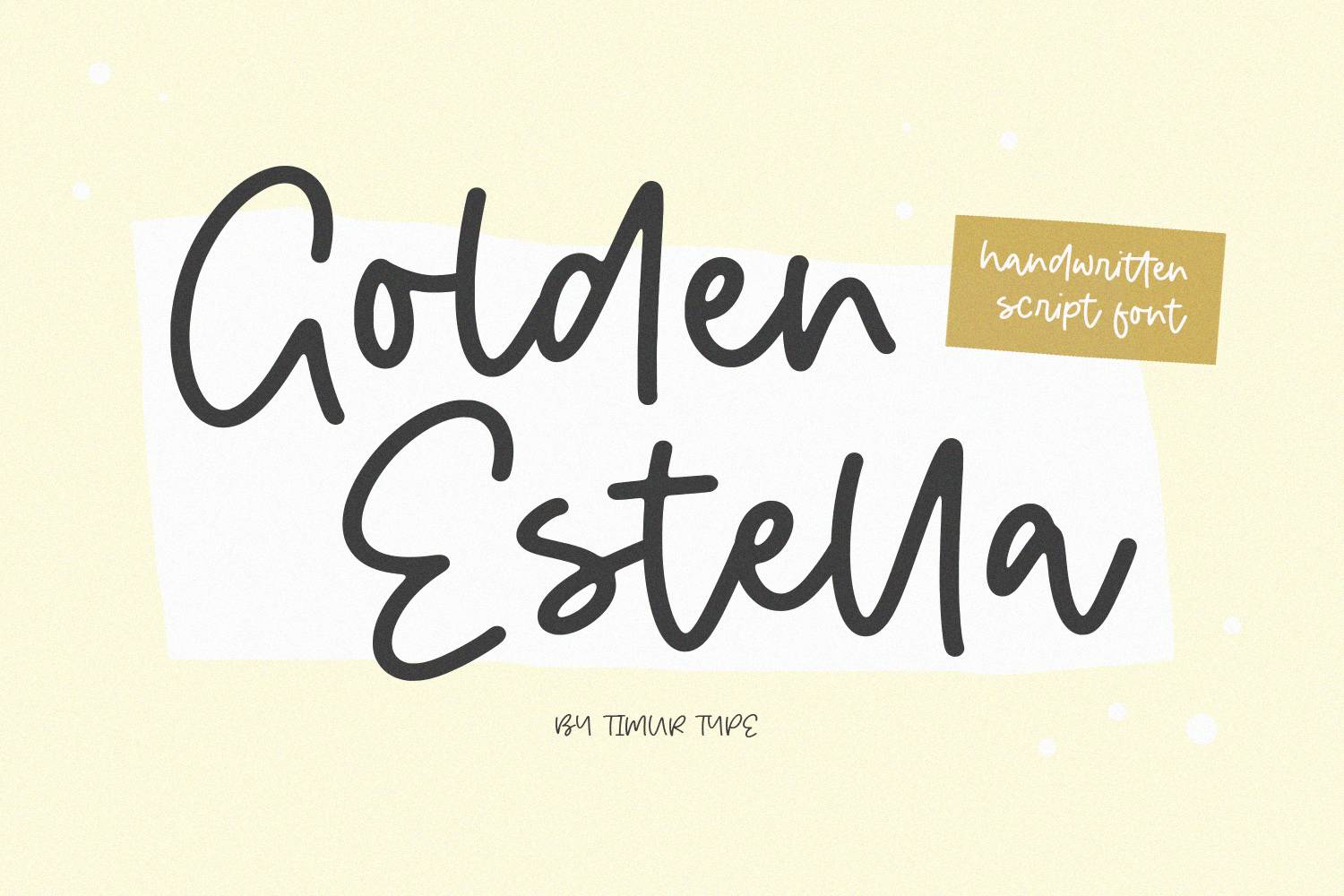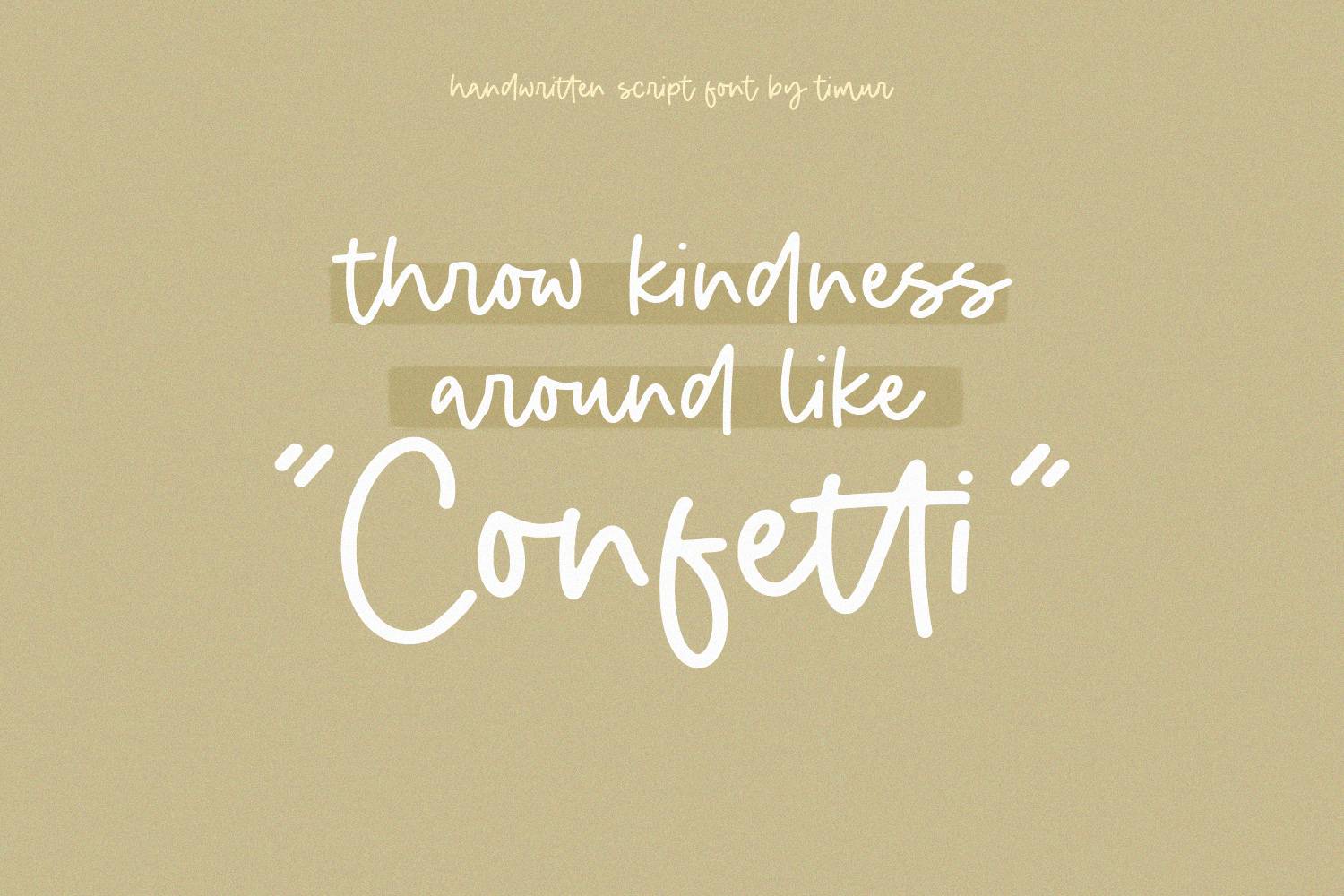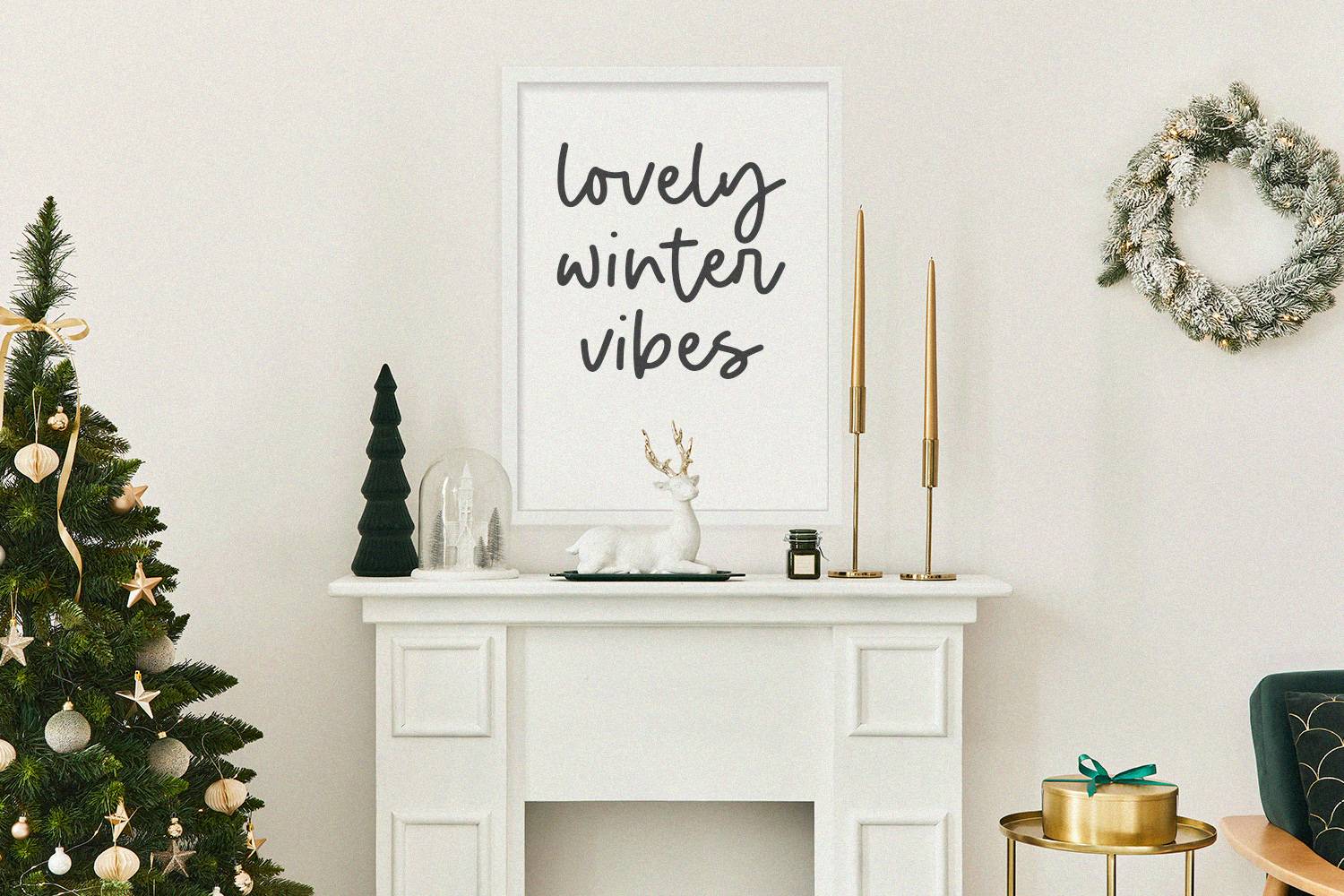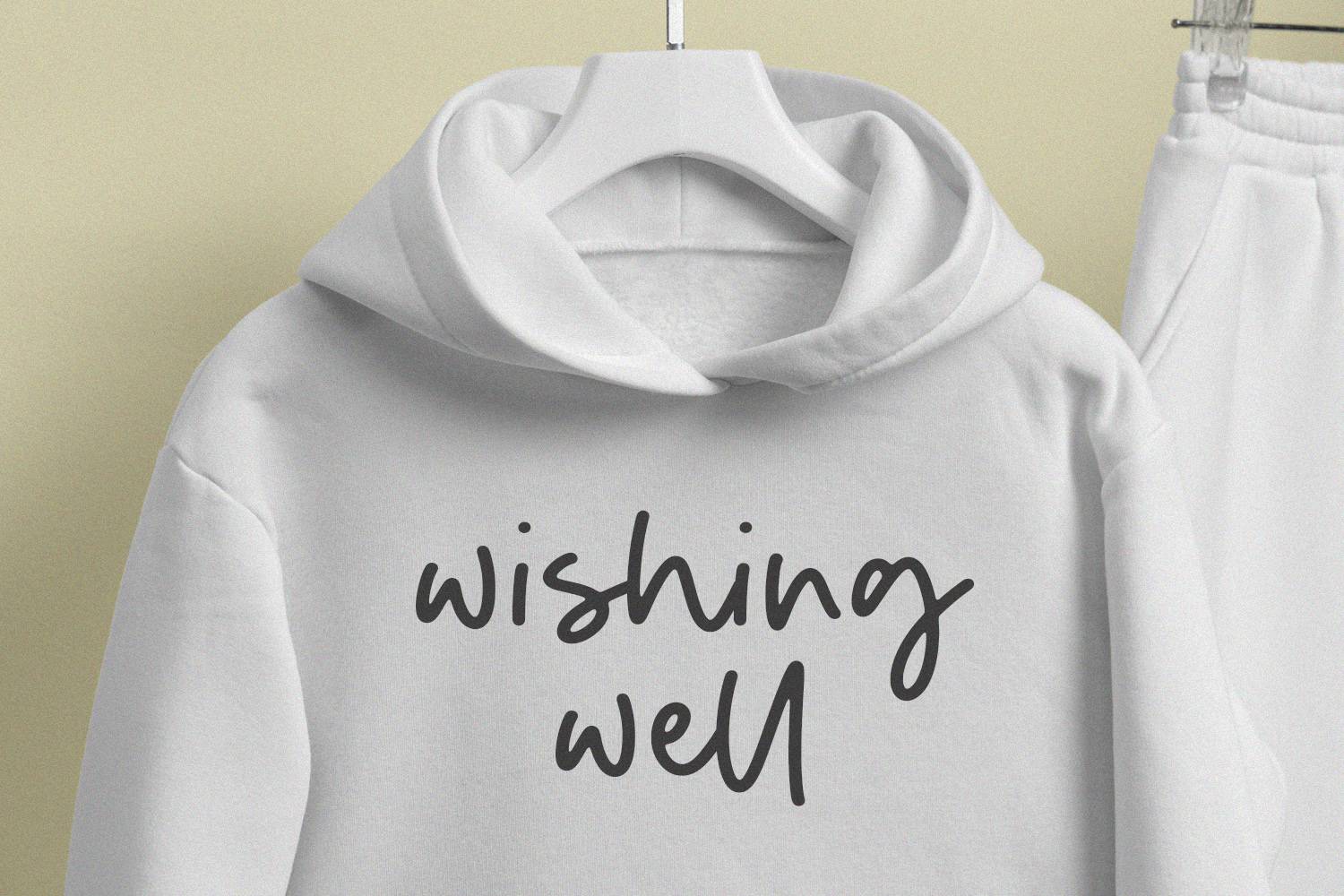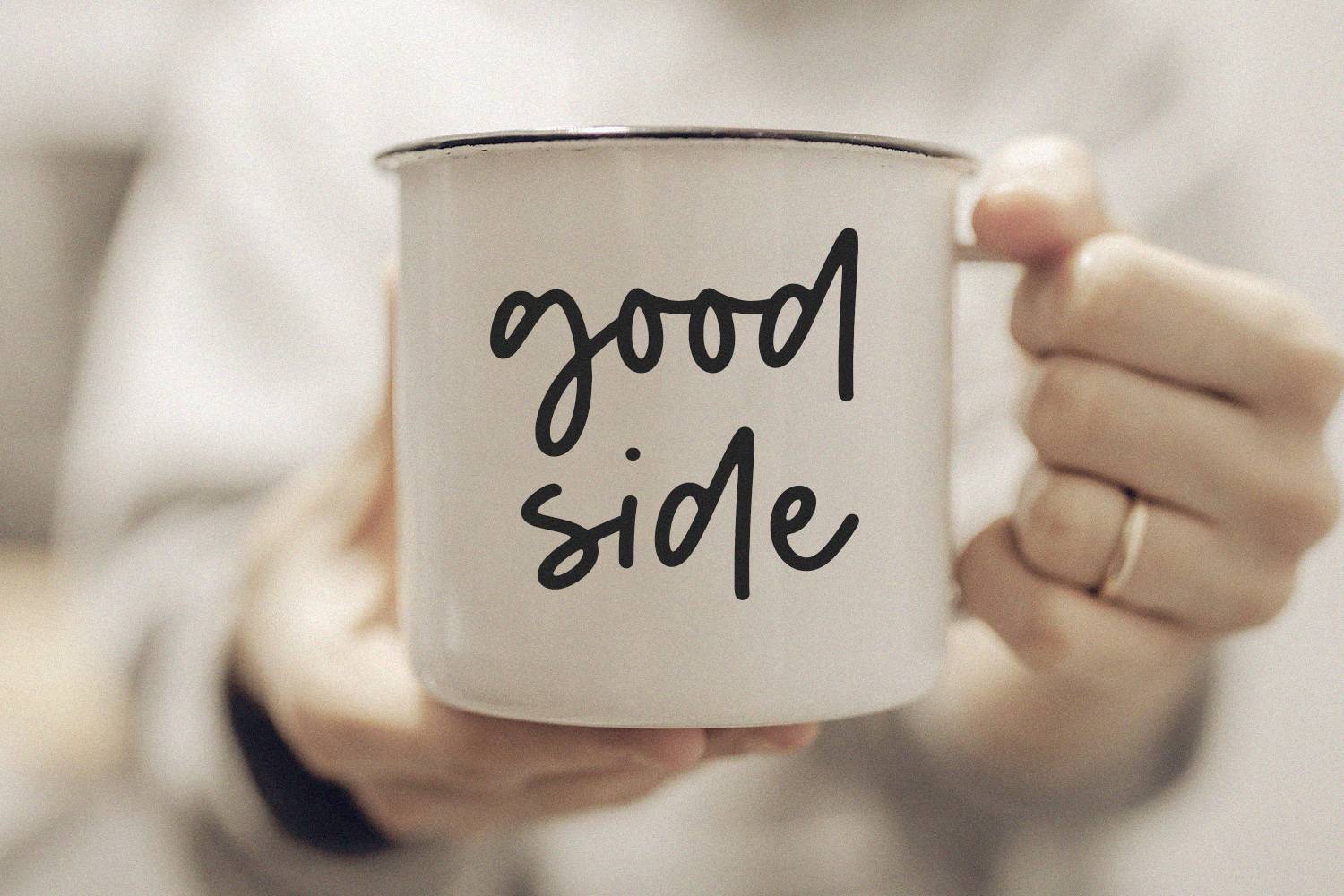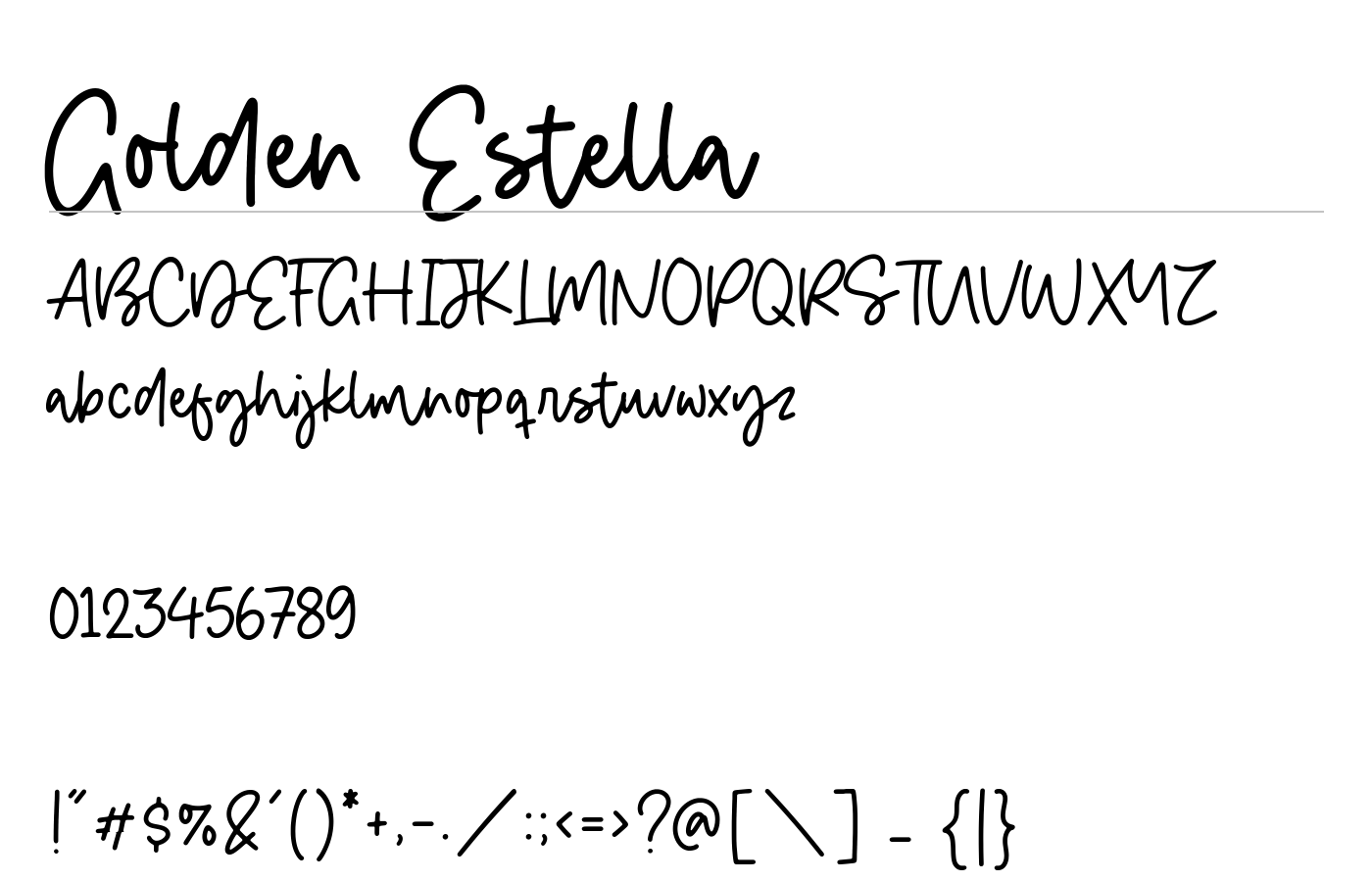
Golden Estella is a casual, handwritten script font with a playful and friendly personality. Its light weight, narrow width, and fluid, slightly irregular letterforms give it an approachable and authentic feel, perfect for creative projects, personal branding, and informal communications. This font works well in logos, social media graphics, and packaging that seek a warm, human touch.